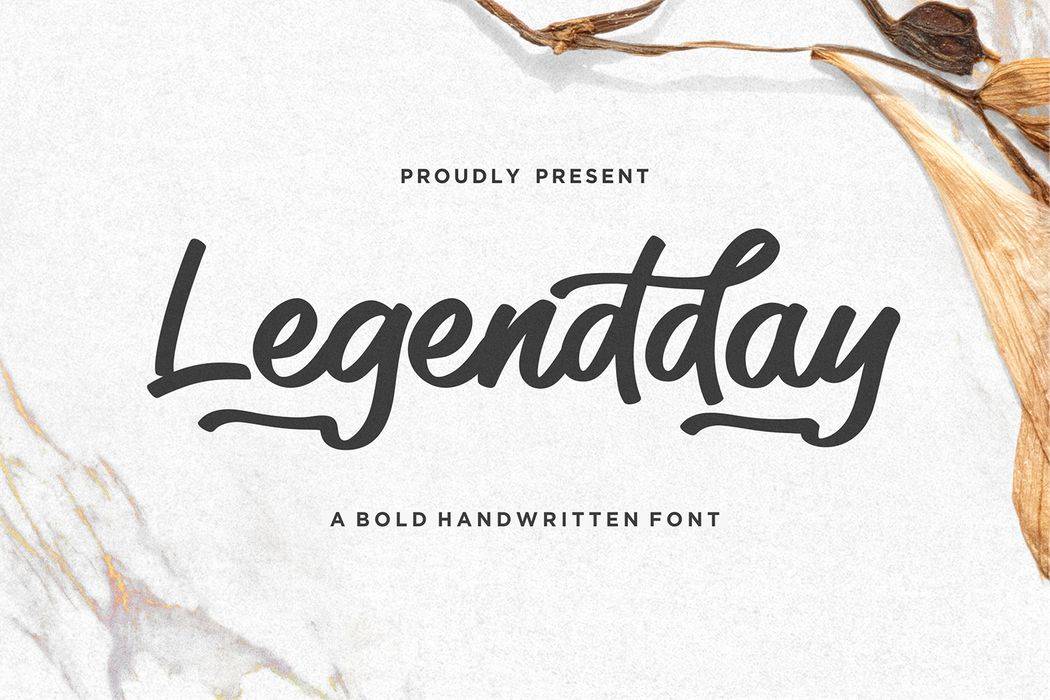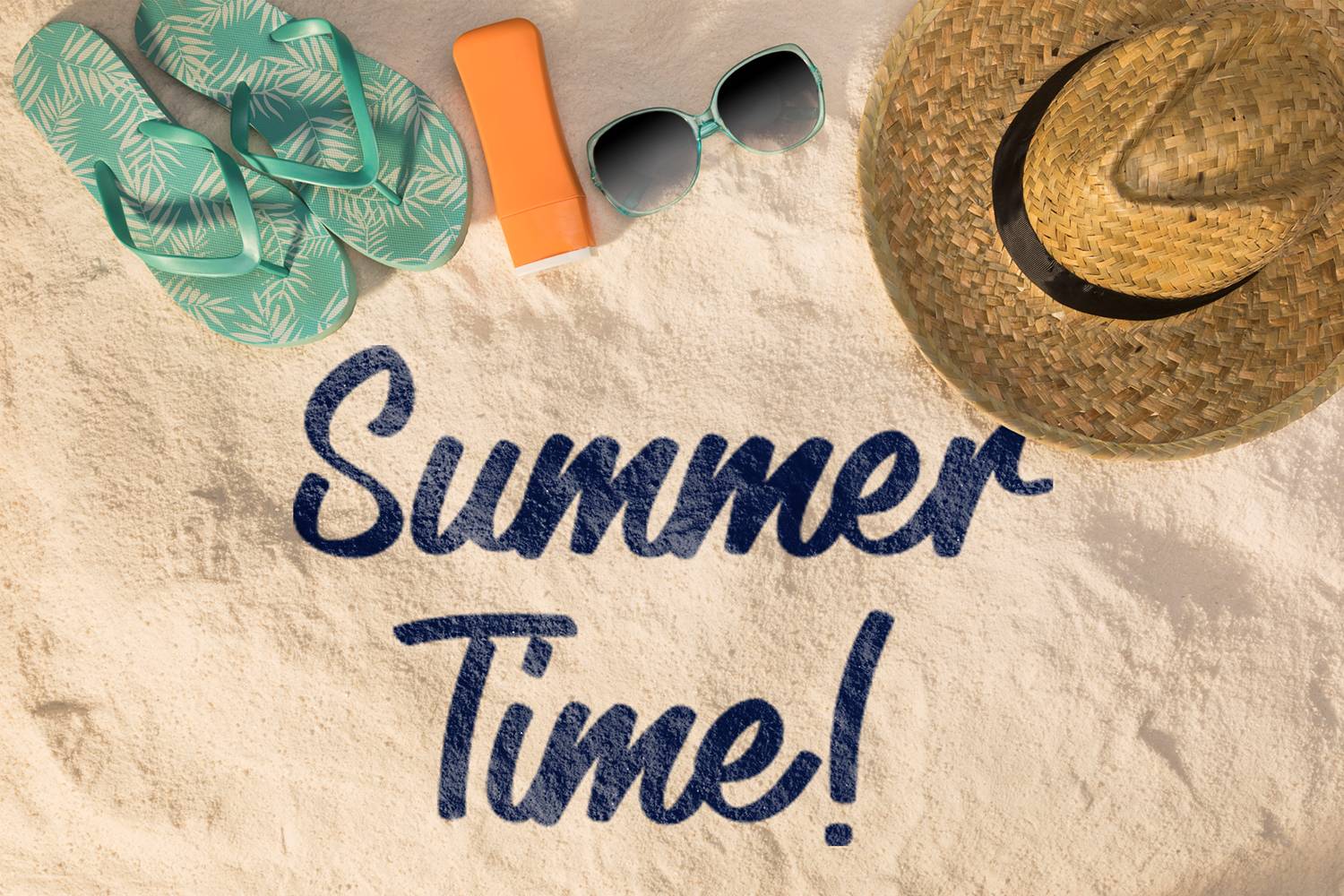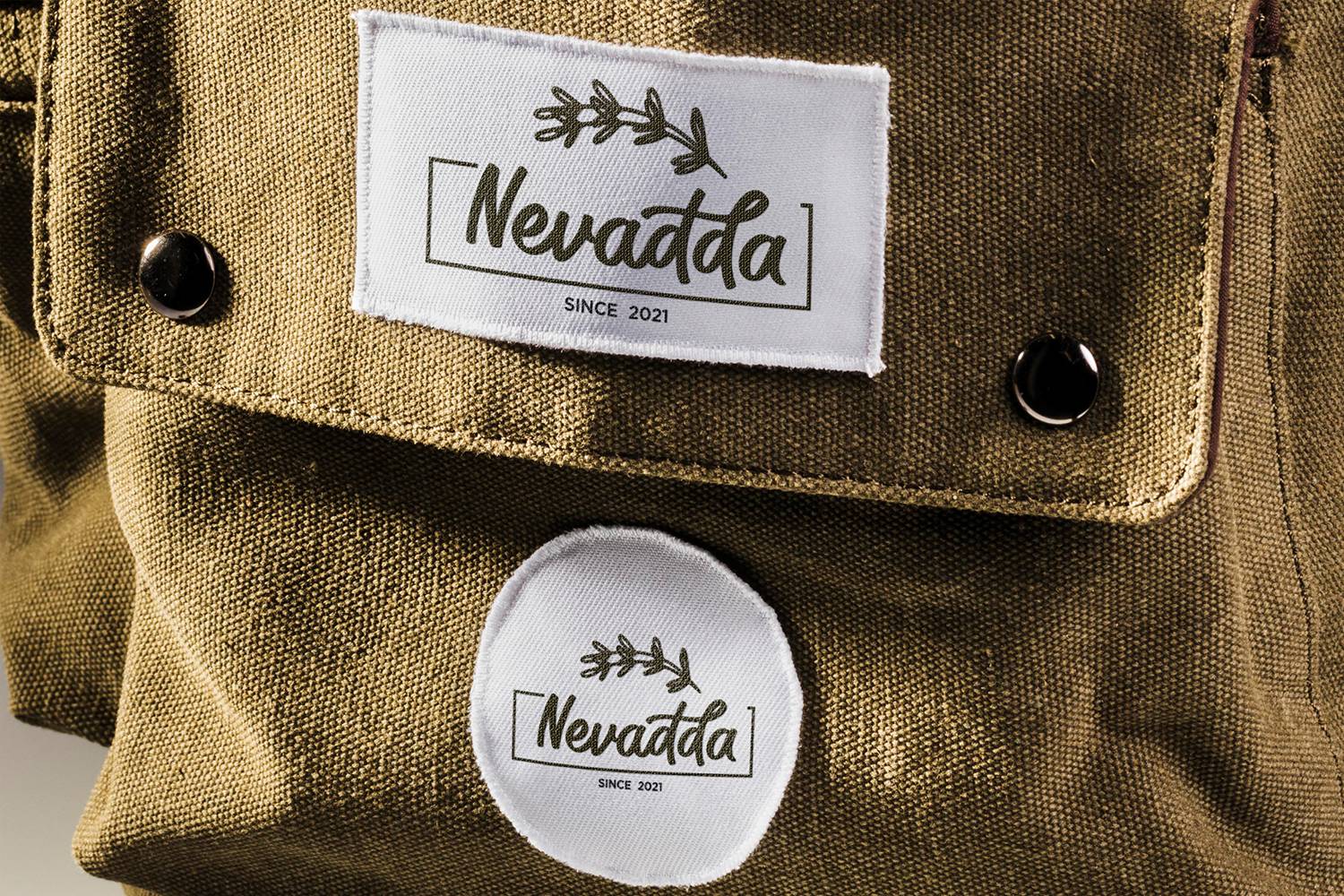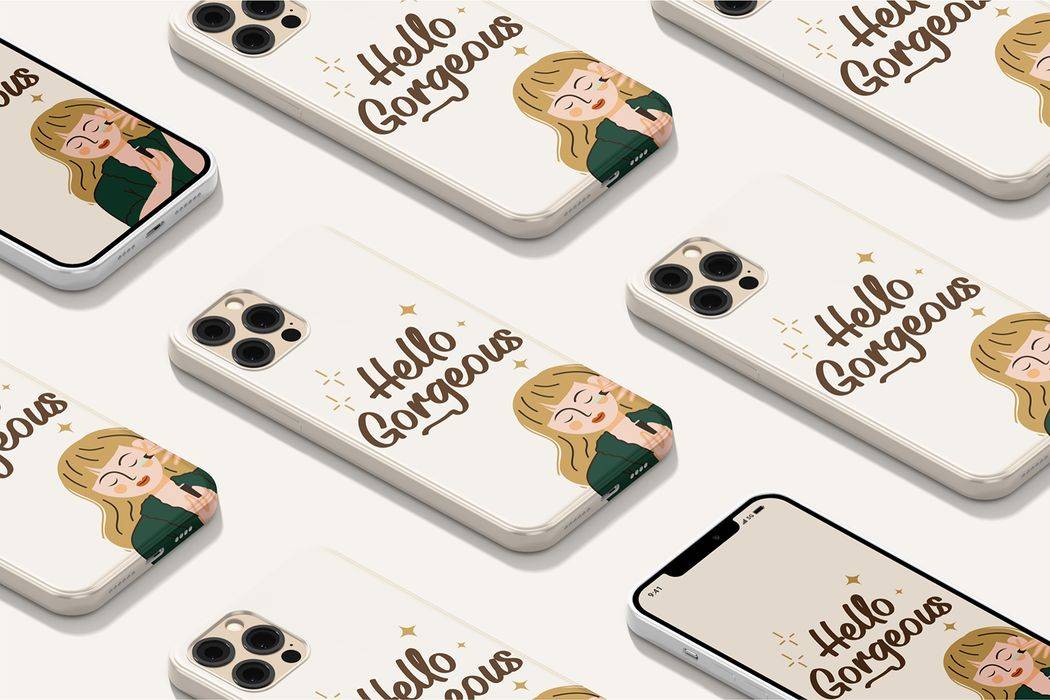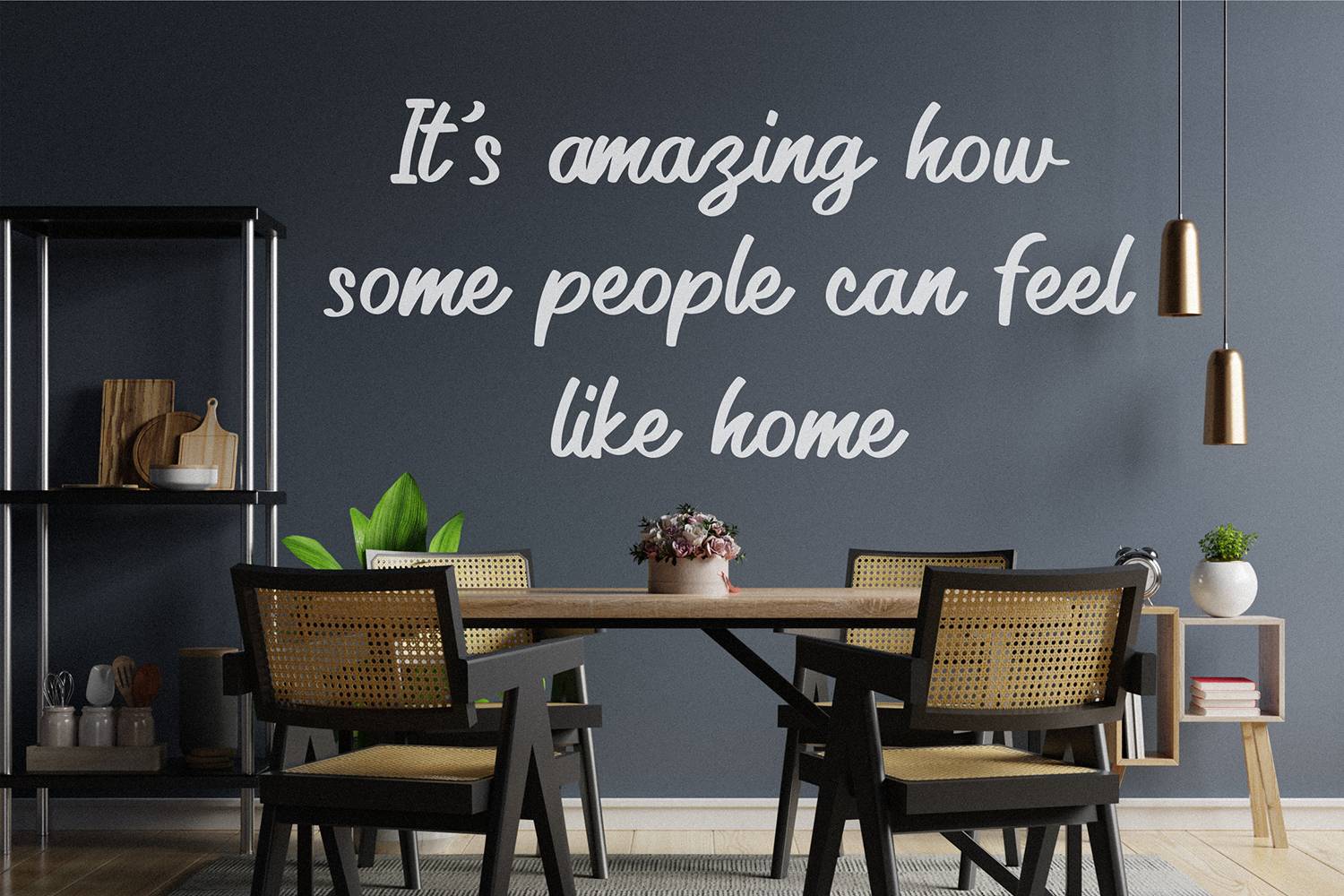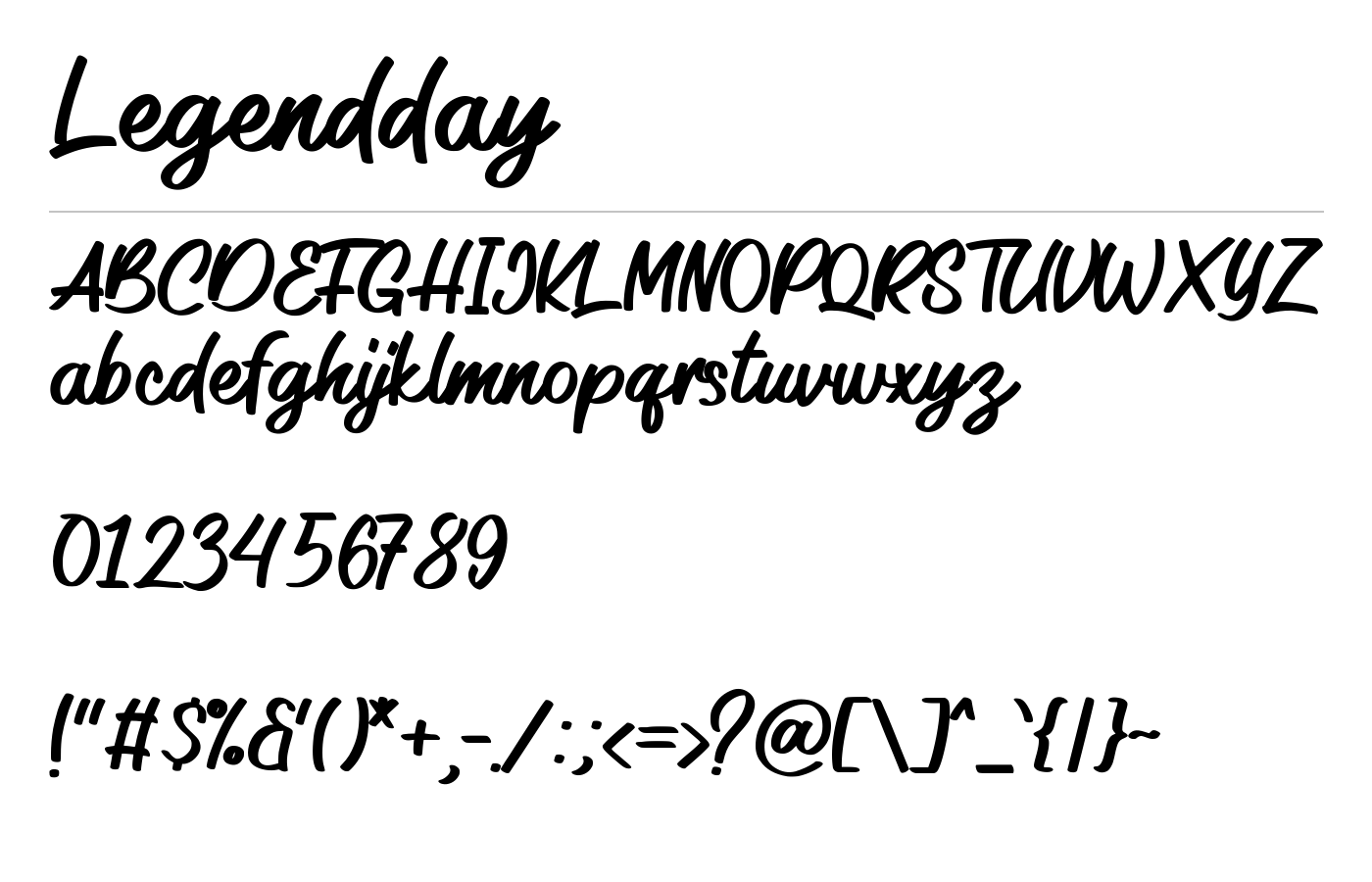
Legendday is a lively and casual script font with a slightly bold weight and smooth, rounded strokes that evoke a friendly, handwritten vibe. Its natural flow and clear letterforms make it ideal for adding a personal and approachable touch to branding, invitations, social media, or any design needing warmth and a handwritten feel.
Legendday Font
About Legendday Font